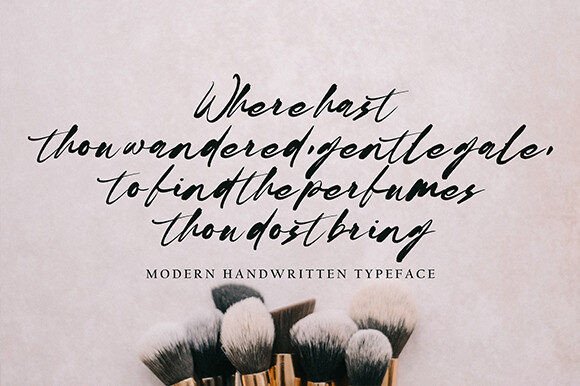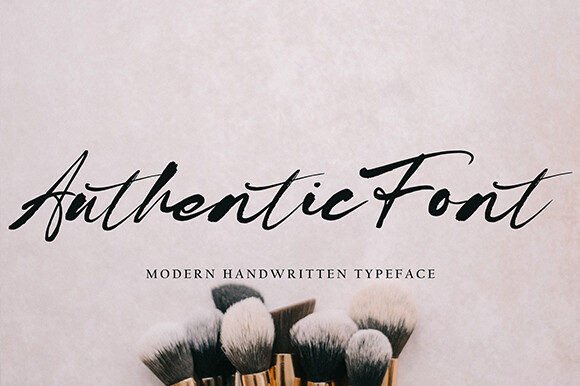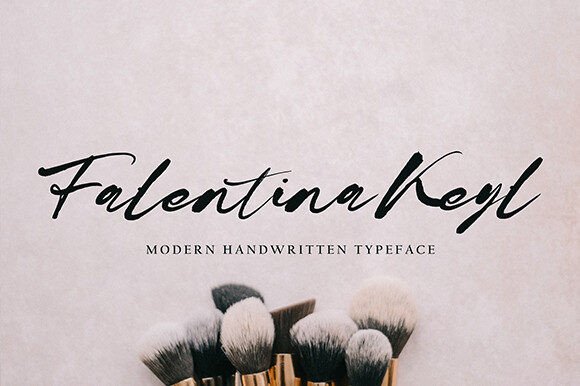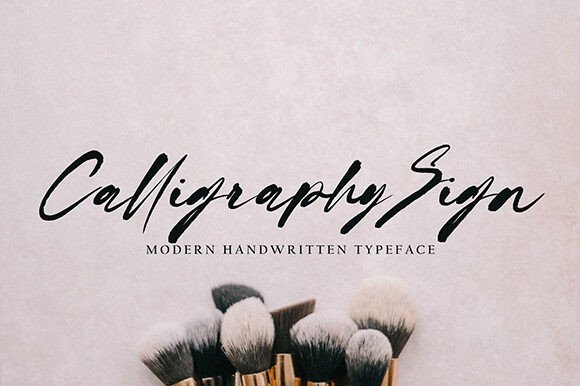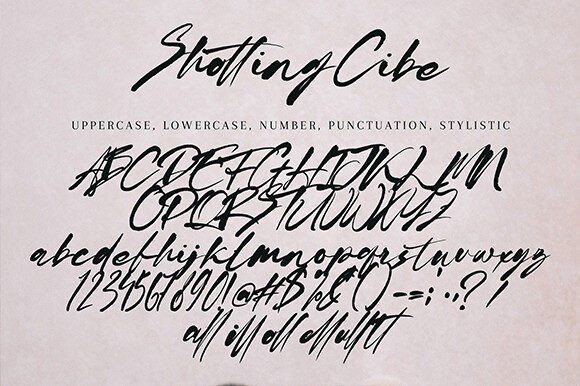
Introduction to Shotting Cibe Font
Shotting Cibe font is a playful and artistic handwritten typeface that captures the essence of messy ink strokes.
With its spontaneous and creative style, this font adds a unique and expressive touch to your designs Ideal for injecting a sense of handcrafted charm into posters, branding, and creative projects, Shotting Cibe is your go-to choice for a bold and unconventional look.
Key Features of Shotting Cibe Font
Why Choose Shotting Cibe Font?